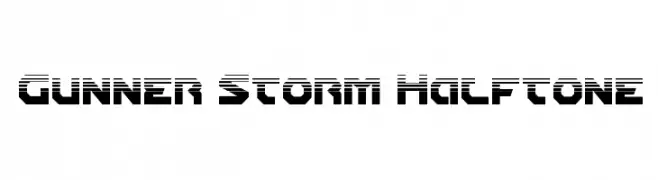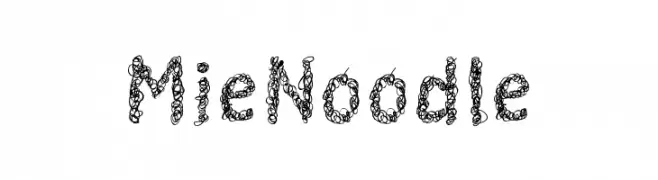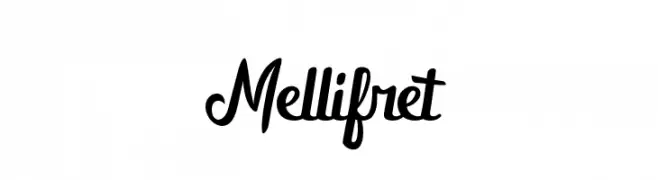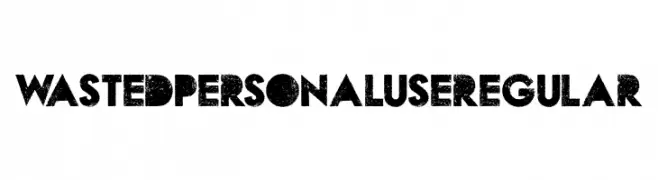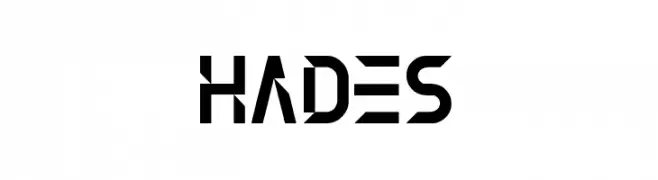
A bold, gothic-inspired font with sharp serifs and decorative elements.
A bold, modern font with a geometric and condensed style.
A semi-bold, extra-condensed sans-serif with a modern, clean look.
A bold, futuristic font with a halftone effect and geometric structure.
A whimsical, hand-drawn font with intricate loops and swirls.
A bold and expressive script font with dynamic, cursive letterforms.
A lively and elegant script font with smooth, flowing connections.
A bold, distressed font with a grunge, vintage appearance.
A bold, futuristic font with sharp, angular edges and geometric shapes.
Designers love JMHCthulhumbusArcadeUGalt2-Regu, MechEffectsBB, Noto Sans Khmer UI ExtraCondensed SemiBold, Gunner Storm Halftone and MieNoodle for their clean forms and broad use cases — from brand identities to landing pages and posters.